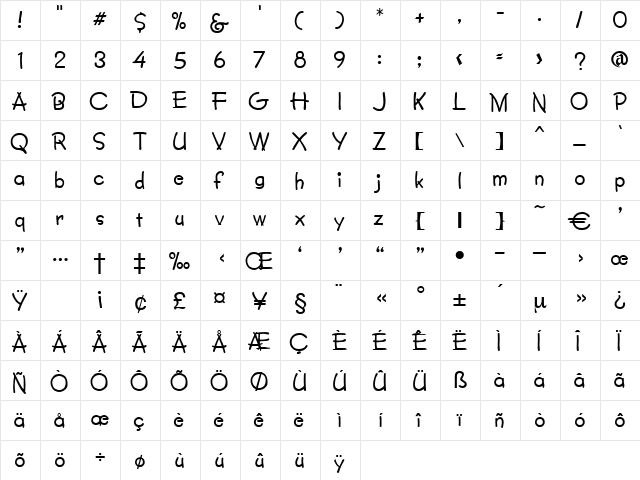
Novene Regular Font Preview
Novene Regular
Novene Regular Font Details
Design Context for Novene Typeface
Novene is a composed and adaptable typeface that performs quietly and consistently across a wide range of design contexts.